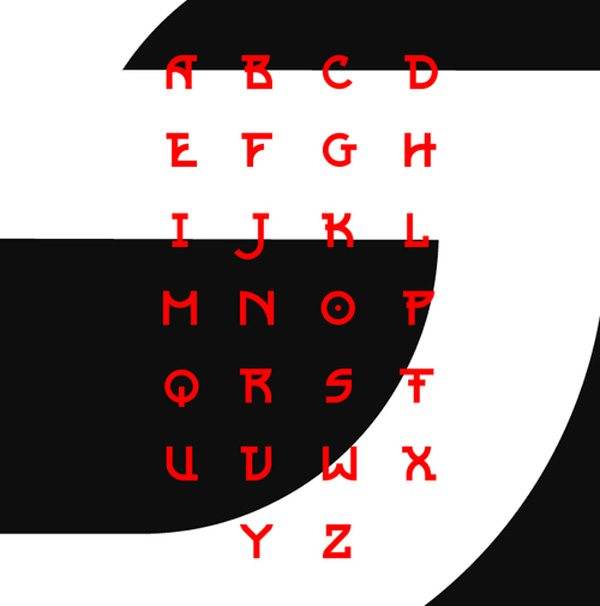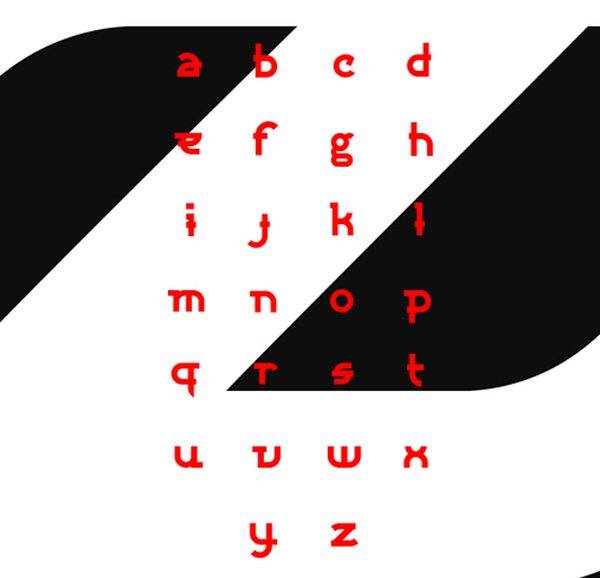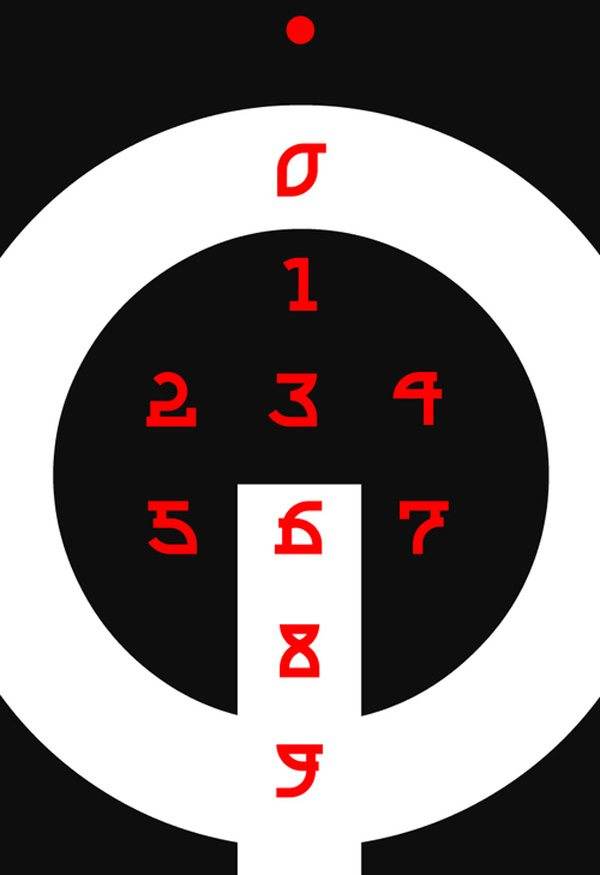
Sangha
Font inspired by Indian writing (in particular, the Tibetan language system and Devanagari) used some language groups: Indo-European, Dravidian, Tibeto-Burman, Mongolian, Austroasiatic, Austronesian, Tai. The project is a study of Indian writing font features. Designed by Anna Seslavinskaya.